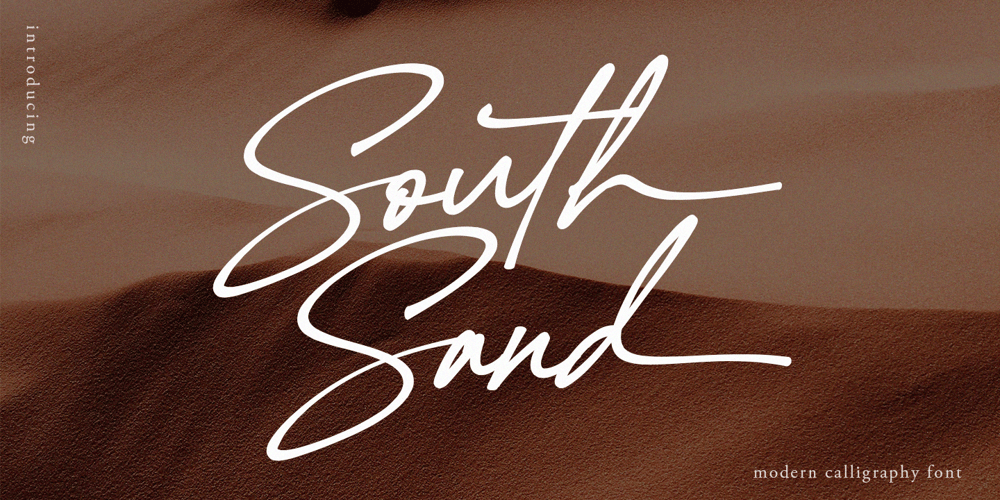
South Sand Font Family was designed by Agam Rahmadan and published by Viswell. South Sand contains 1 styles and family package options. South Sand is a stylish and lovely script font. It looks stunning on wedding invitations, thank you cards, quotes, greeting cards, logos, business cards and every other design which needs a handwritten touch.This font is PUA encoded which means you can access all of the glyphs and swashes with ease!South Sand features : Uppercase & Lowercase Character Numeral & Punctuation Alternate & Ligatures Ending Swash Lowercase Multilingual